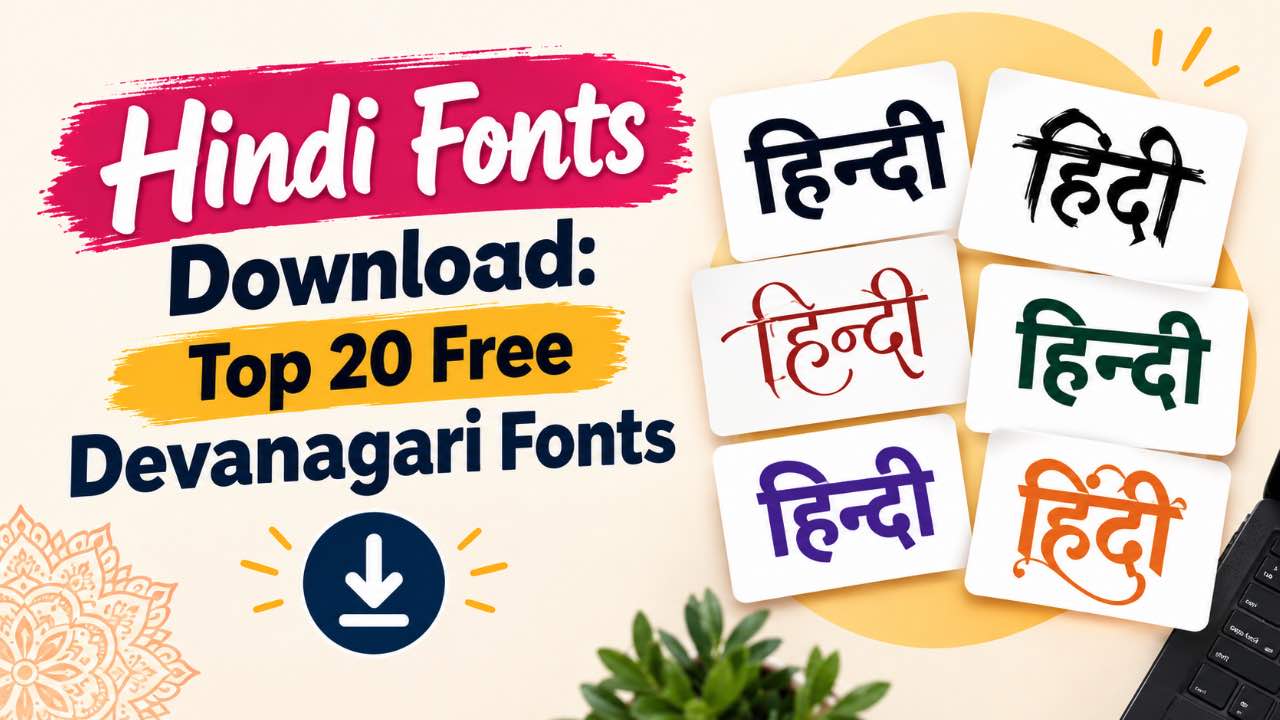
Are you looking for the best Hindi fonts download for your next project? You are in the right place. Hindi typography is growing fast, and designers need stylish Hindi fonts to make their work stand out. Whether you want to type an official document or create a YouTube thumbnail, finding the right Devanagari font is essential.
In this guide, we will explore the top 20 free Hindi fonts download options available today. We have carefully selected these fonts based on popularity and daily usage. Therefore, you can easily pick the perfect one for your needs.
Why You Need Good Hindi Fonts
Using clear and attractive text grabs the reader’s attention instantly. Moreover, many government offices require specific fonts for typing tests. On the other hand, web developers need Unicode Hindi fonts to display text correctly on websites. Because of this high demand, we compiled a list of the most popular Devanagari fonts.
Top 20 Free Hindi Fonts Download List
1. Kruti Dev 010 Typing Font
Kruti Dev 010 is the most famous non-Unicode font. Millions of people use it for official government work and typing tests. DOWNLOAD
2. Mangal Font Unicode Font
If you want to create a website, Mangal is a must-have Unicode Hindi font. It supports online publishing and works perfectly on all web browsers. DOWNLOAD
3. DevLys 010 Standard Font
Similar to Kruti Dev, DevLys is another top choice for Indian typing exams. It offers a clean and professional look. DOWNLOAD
4. Chanakya Classic Font
Chanakya is very popular in the newspaper and magazine industry. Therefore, graphic designers often use it for print media. DOWNLOAD
5. Mukta Google Font
Mukta is a modern Google font. You will love its clean, mono-linear design for digital interfaces and mobile apps. DOWNLOAD
6. Hind Web Font
Hind is an open-source typeface that supports Devanagari and Latin scripts. It looks great on both screens and printed paper. DOWNLOAD
7. Samarkan Stylish Font
Want to give your text a traditional Indian touch? Samarkan is a highly decorative font. Creators frequently use it for movie posters and brand logos. DOWNLOAD
8. Kalam Handwriting Font
Kalam features a handwriting style. As a result, it adds a personal and friendly feel to your social media graphics. DOWNLOAD
9. Rajdhani Tech Font
Rajdhani offers a squared and futuristic look. Tech websites and gaming channels often choose this stylish Hindi font. DOWNLOAD
10. Aparajita Elegant Font
Aparajita is a beautiful Unicode Hindi font. You can use it to add elegance to your digital documents and presentations. DOWNLOAD
11. Akasha Bold Font
Akasha provides a bold and unique style. It works wonderfully for large headings and YouTube thumbnails. DOWNLOAD
12. Tiro Devanagari Font
Tiro Devanagari balances traditional and modern text styles. Furthermore, it is excellent for literary publishing and classic texts. DOWNLOAD
13. Gargi TrueType Font
Gargi is a Unicode TrueType font. It displays text clearly on the web, making it a favorite among bloggers. DOWNLOAD
14. Nakula Formal Font
Developed by IMRC, Nakula looks closer to Times New Roman. It gives your Hindi text a formal and academic appearance. DOWNLOAD
15. Sahadeva Regular Font
Sahadeva is another reliable TrueType Regular Unicode font. It pairs beautifully with Latin scripts. DOWNLOAD
16. Teko Headline Font
Teko has a tall and narrow design. Therefore, it saves space while keeping your headlines highly readable. DOWNLOAD
17. Noto Sans Devanagari Font
Google created Noto Sans to eliminate missing characters on the web. This font ensures your website looks perfect on every device. DOWNLOAD
18. Karma Reading Font
Karma features rounded stroke terminals. It brings a clean and constructed style to your reading materials. DOWNLOAD
19. Biryani Screen Font
Biryani supports both Latin and Devanagari scripts. It is perfect for reading long paragraphs on screens. DOWNLOAD
20. AMS Aakash Calligraphy Font
Finally, AMS Aakash is a stunning calligraphy font. Wedding card designers and banner makers download this font daily. DOWNLOAD
Conclusion